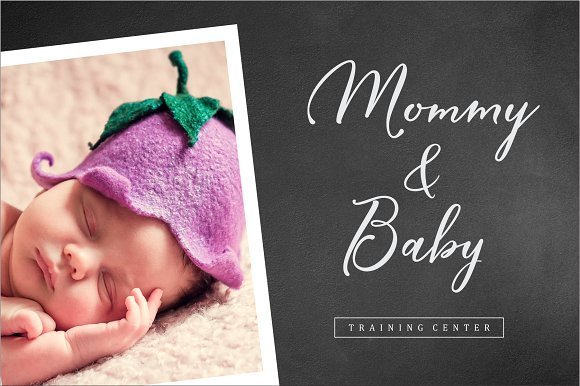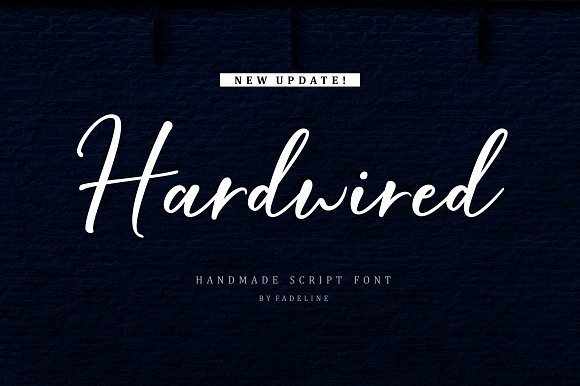
Hardwired Script Font
Hardwired Script Font is quite well-known for its use of internal adobe. This typeface is also known for its use in logo designing and it is free of charge download.
Style Of Hardwired Script Font Free